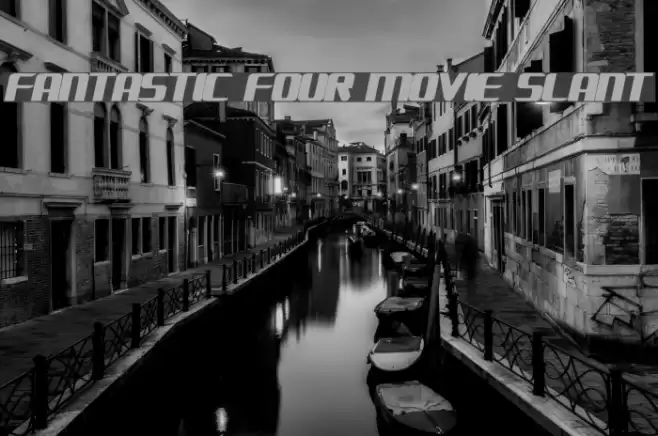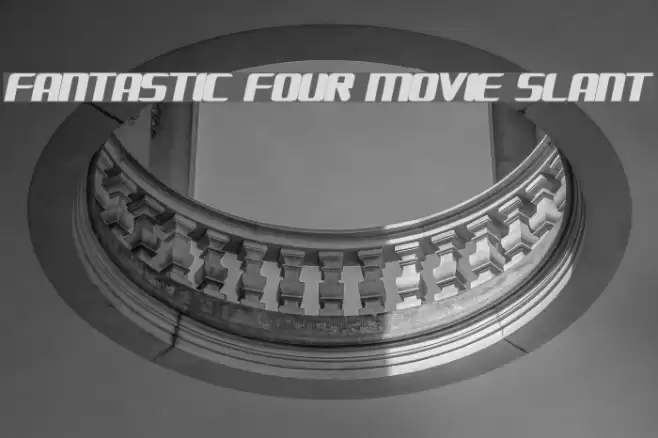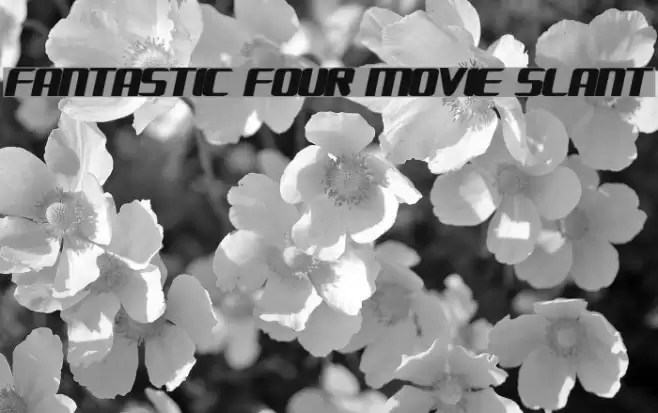
FANTASTIC FOUR MOVIE SLANT Font
FANTASTIC FOUR MOVIE SLANT Description
This font features a bold, futuristic design with a distinct slant that gives it a dynamic and energetic appearance. The characters are wide and have a strong presence, making them ideal for attention-grabbing headlines or titles. The angular cuts and sharp edges add a modern and sleek touch, while the consistent stroke width maintains a uniform look across all characters. The font's style is reminiscent of science fiction and superhero themes, making it suitable for projects that require a sense of action and adventure.
A bold, slanted font with a futuristic and dynamic style from Uncategorized fonts.
- Proposed Projects: Ideal for movie posters, video game titles, comic book covers, and branding for tech or entertainment industries.
- Width: Expanded